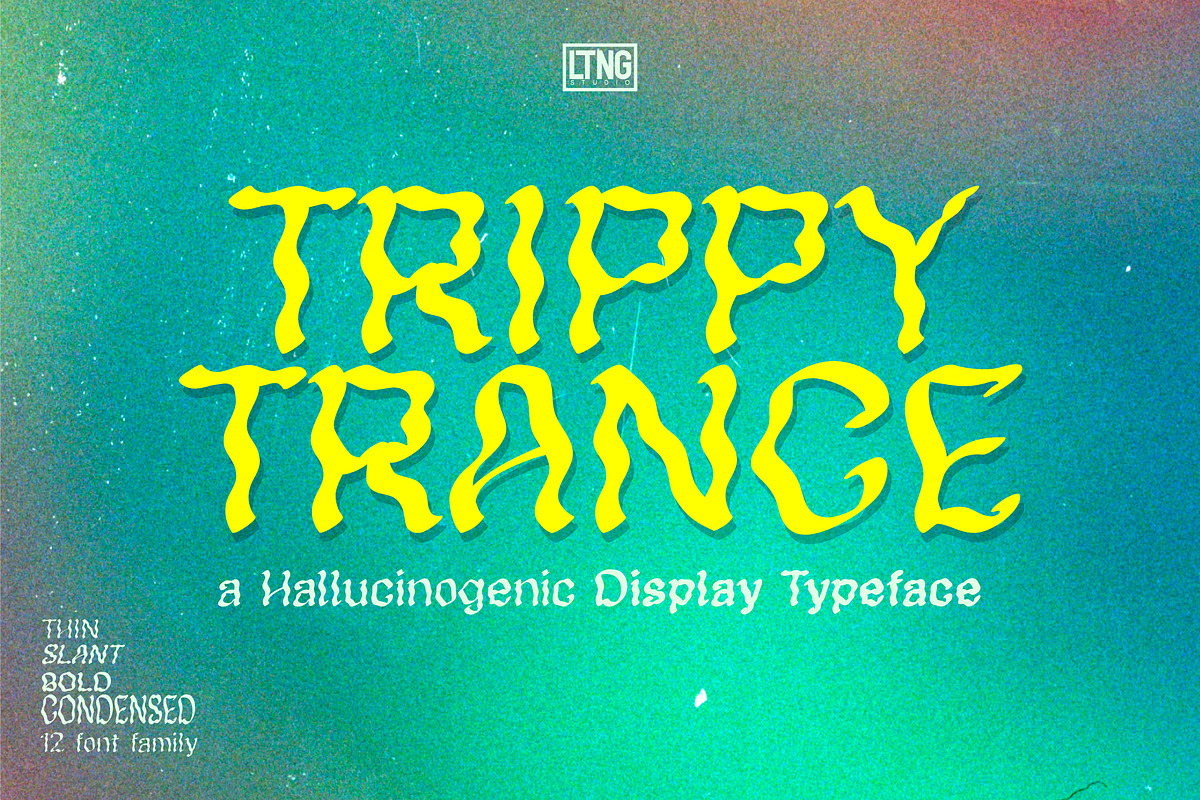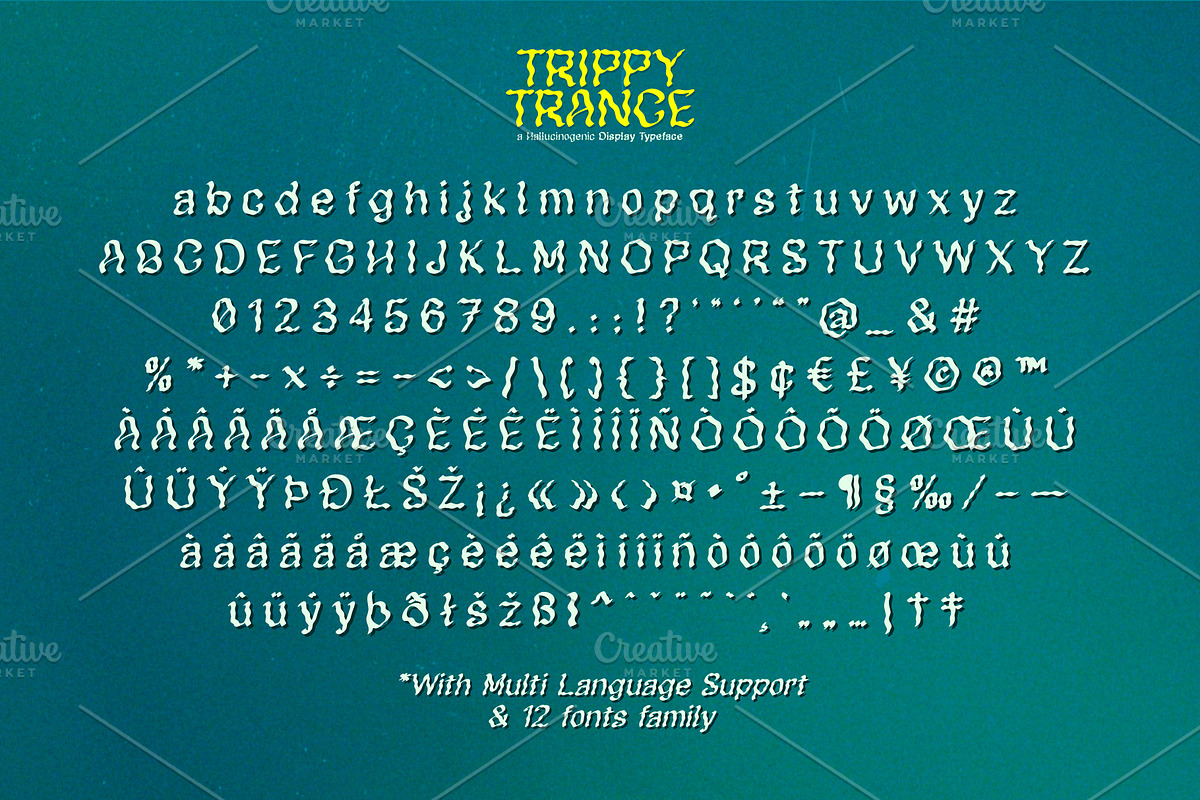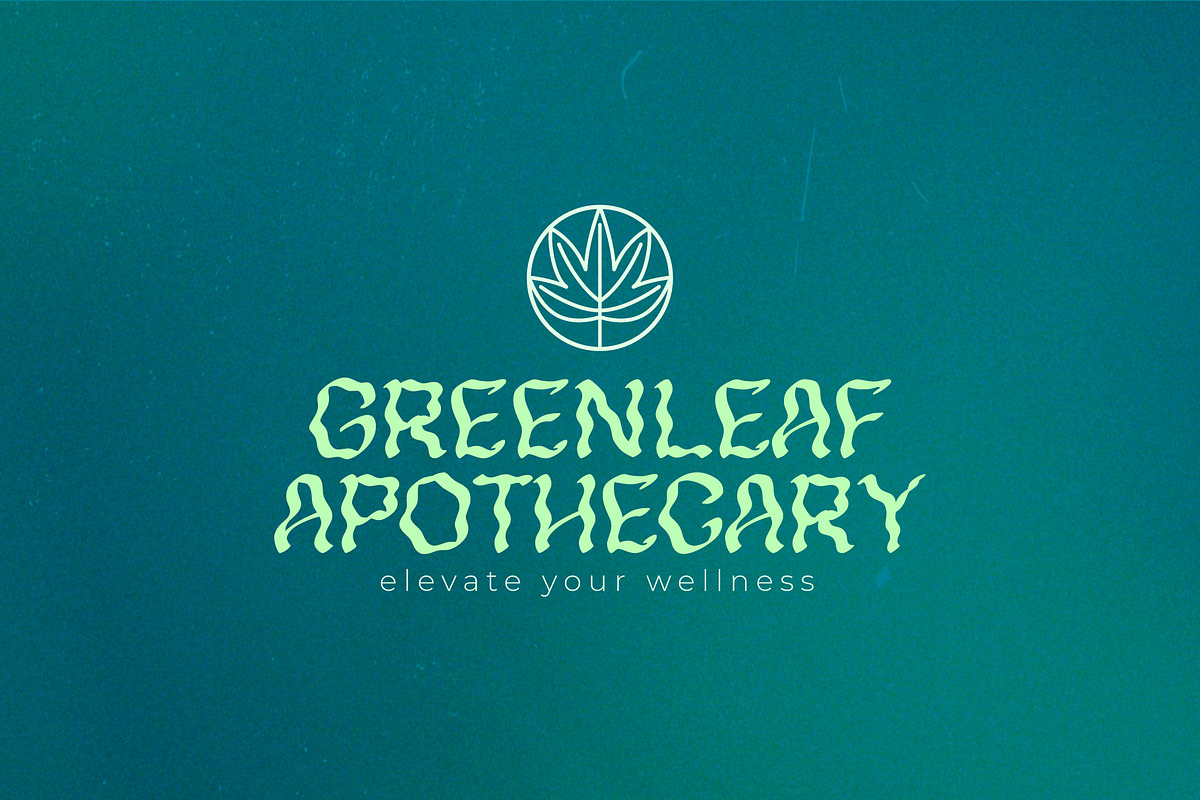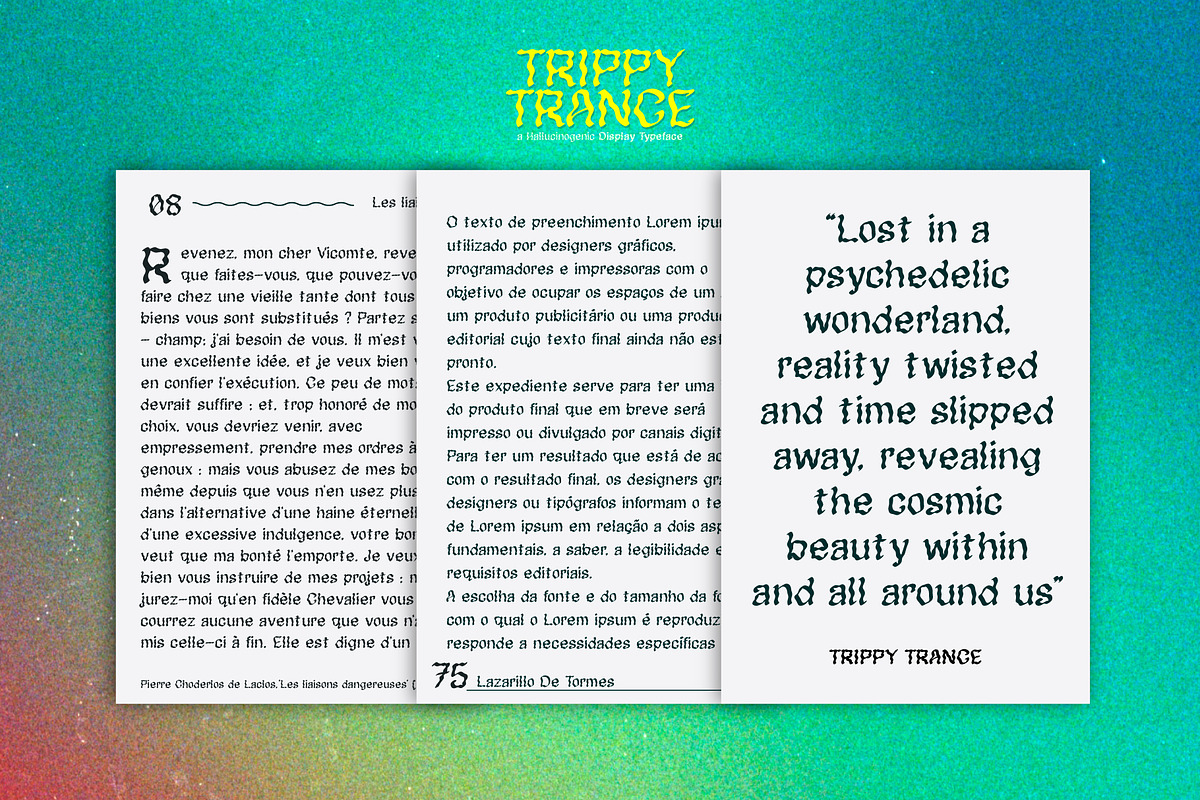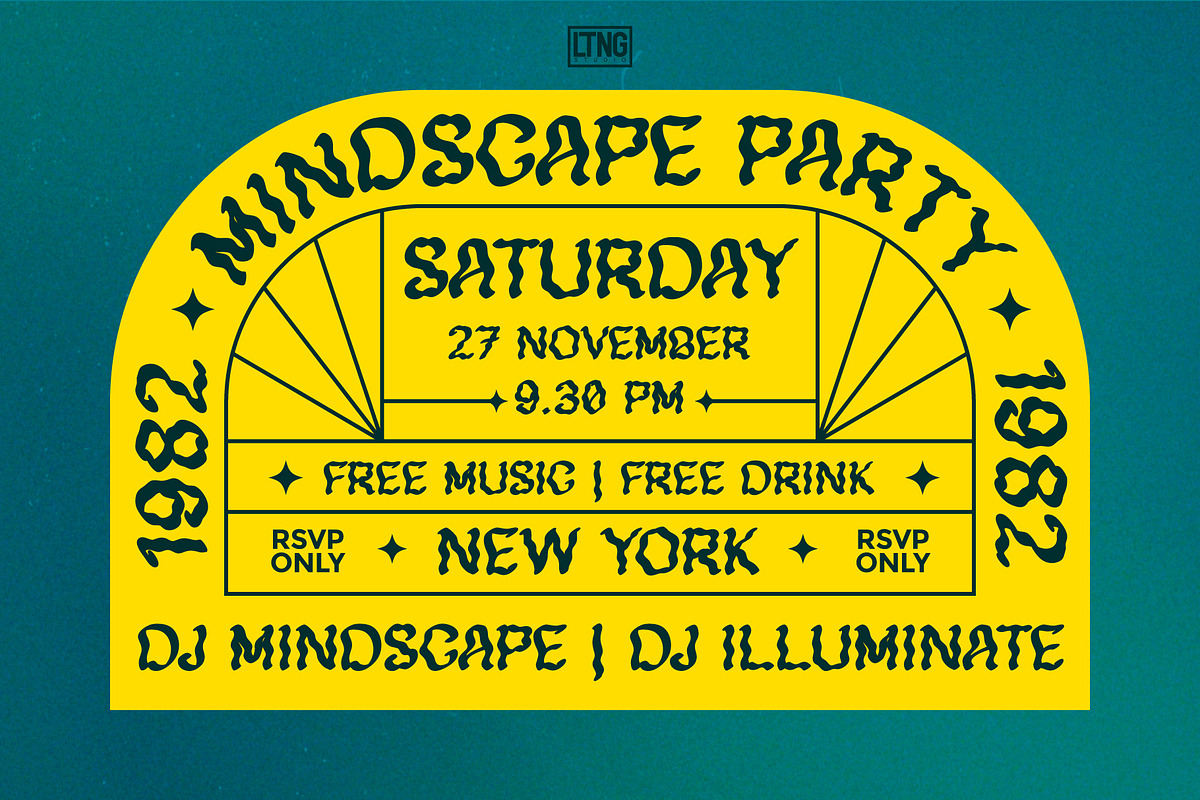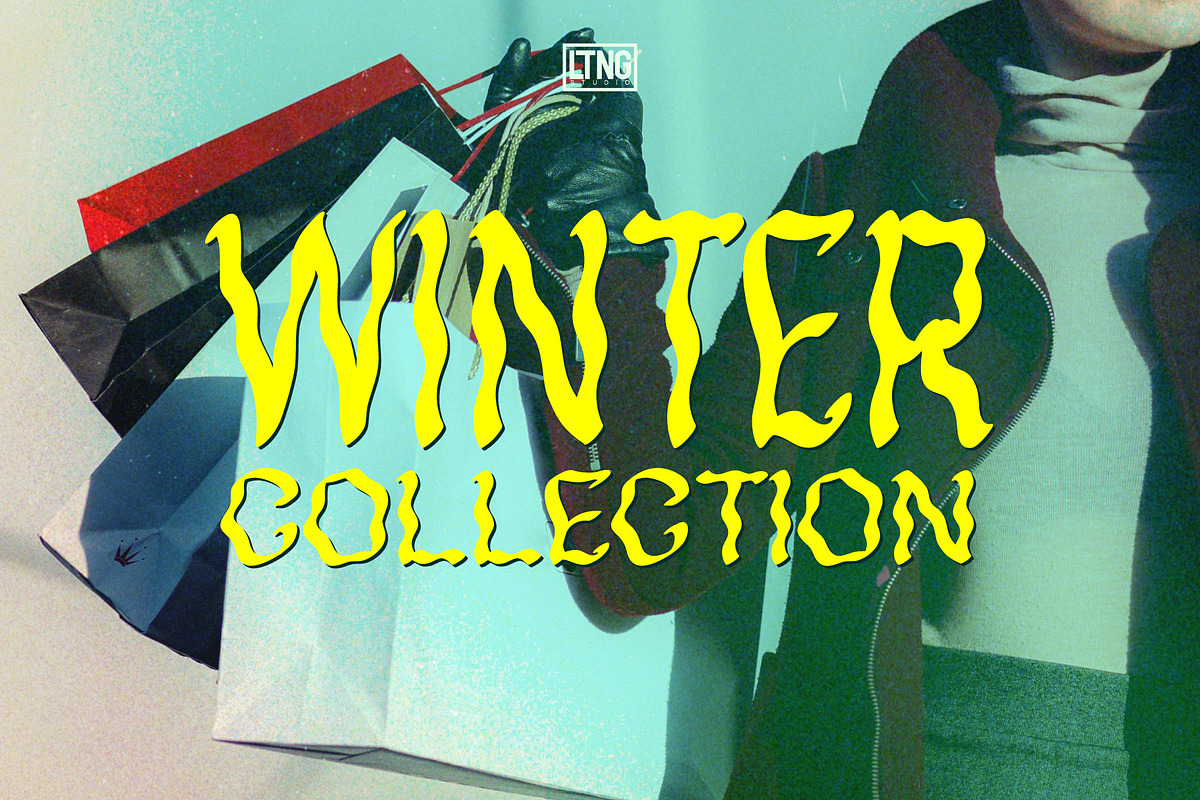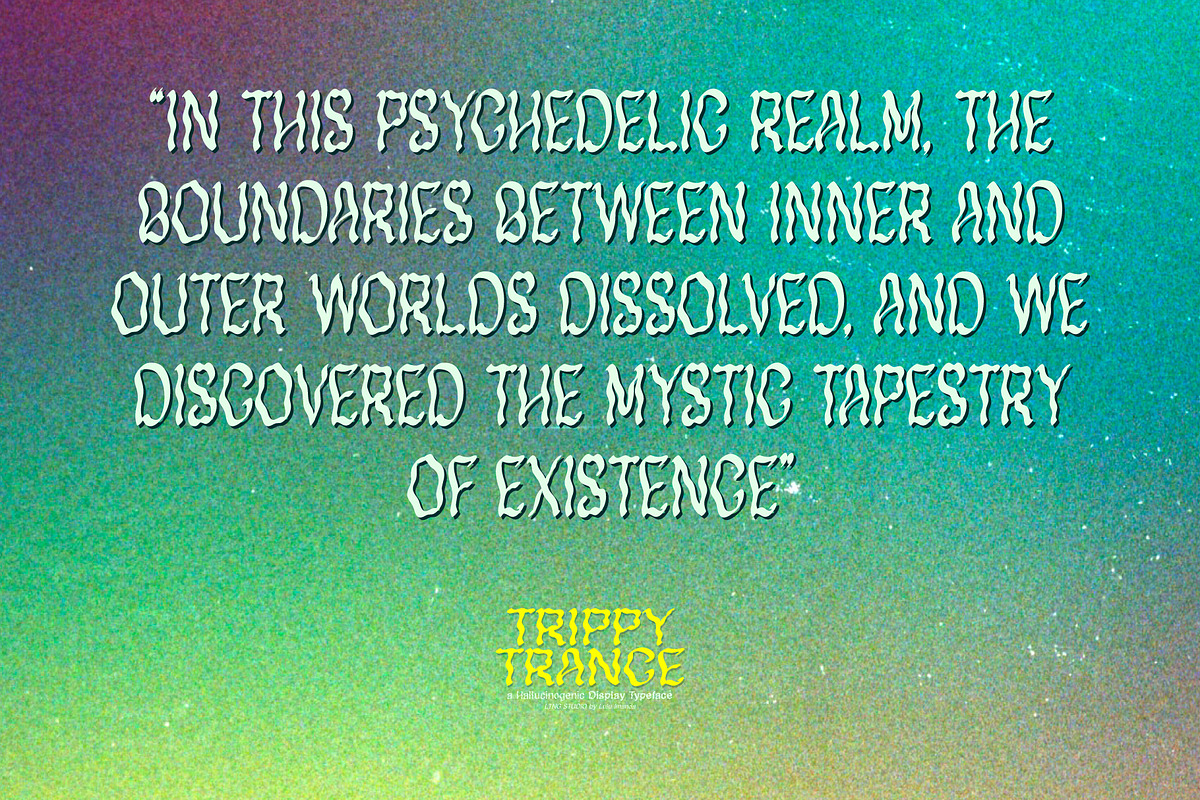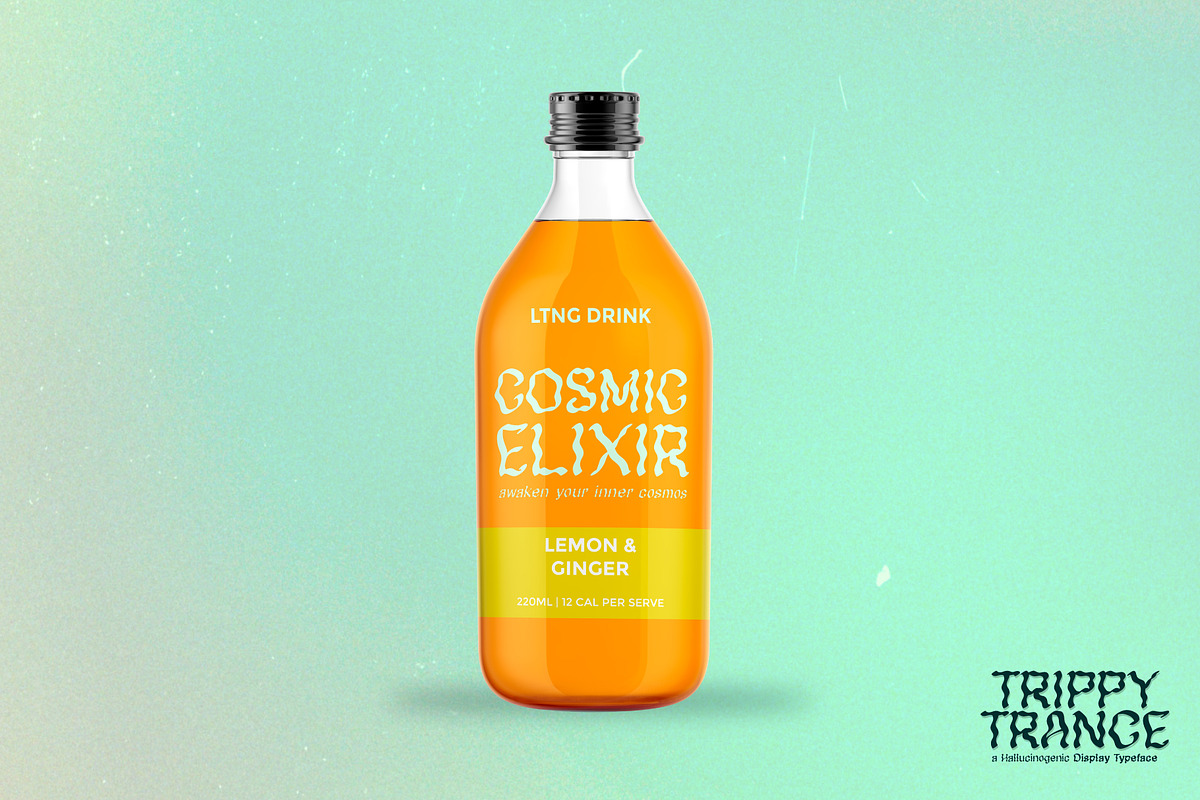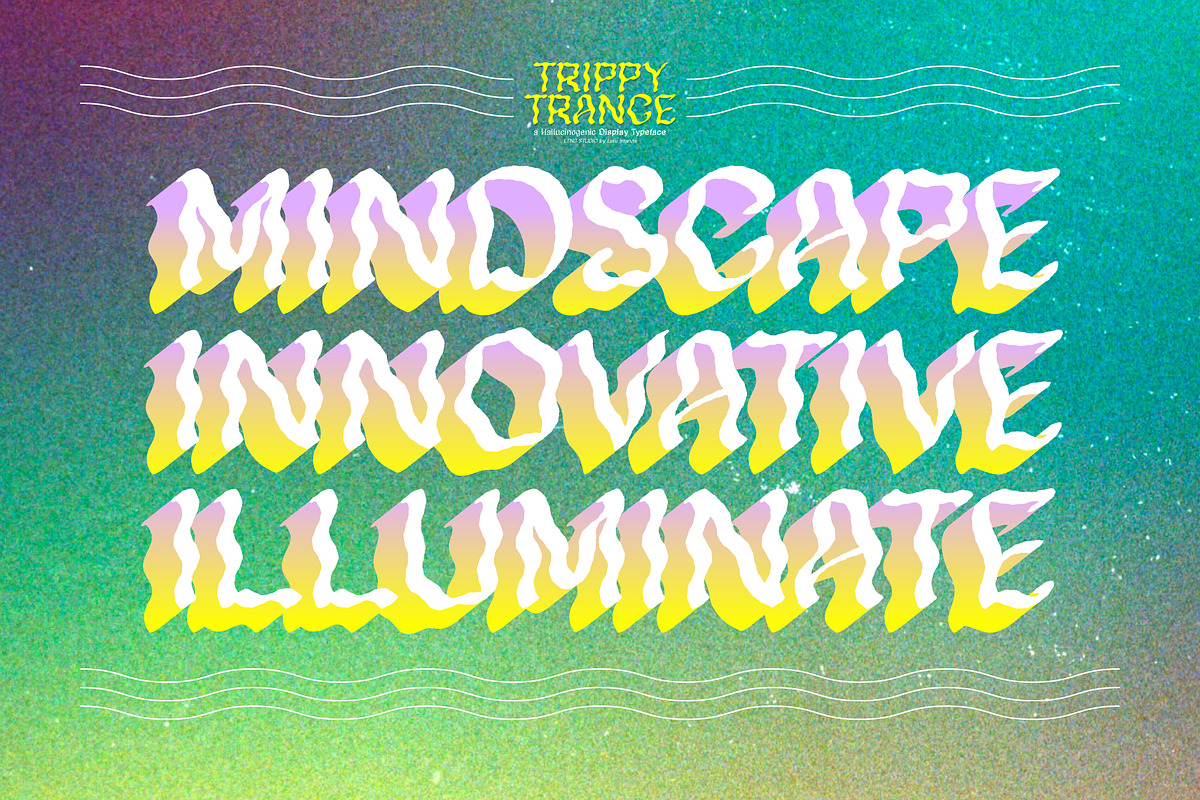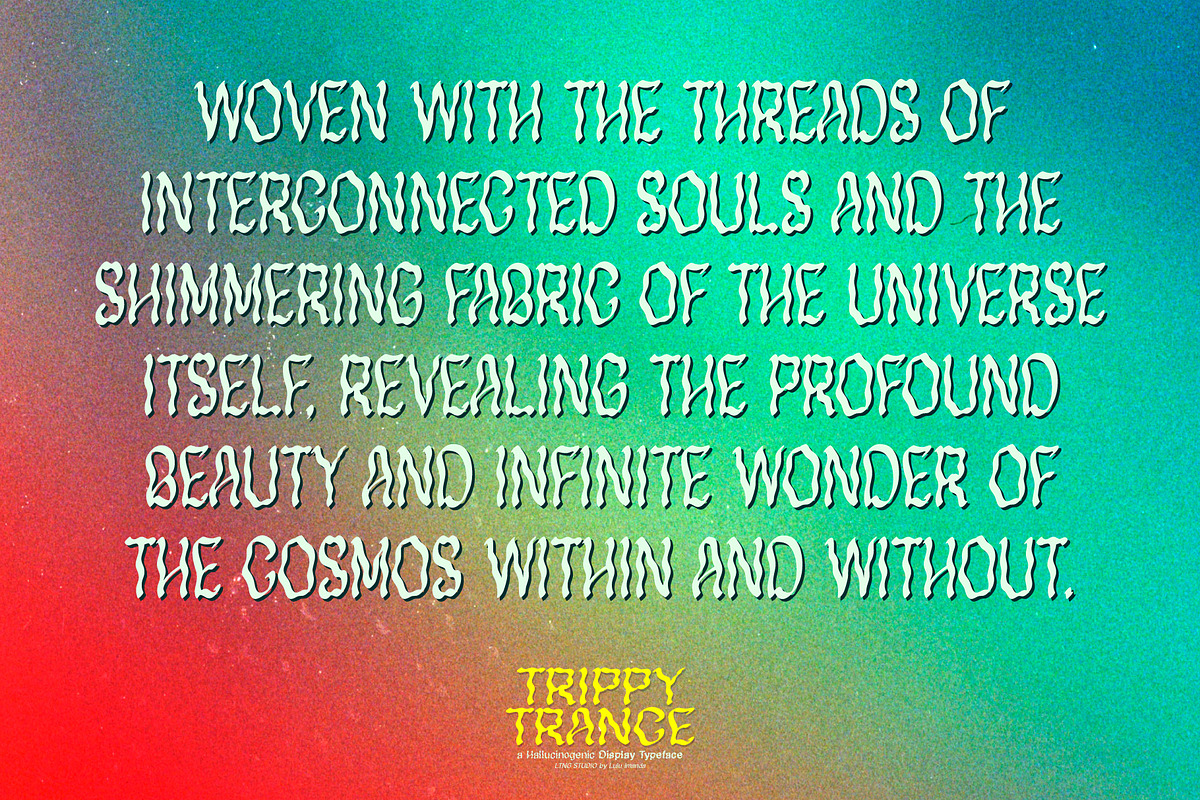
Trippy Trance
Trippy Trance: a Hallucinogenic Display Typeface
Trippy Trance is a unique display font designed to ignite your creative spark with a psychedelic twist. With its vibrant colors, unconventional shapes, and mind-bending style, this font is perfect for posters, album covers, and anything that calls for an eye-catching design. Get ready to leave a lasting impression and take your projects on a far-out, mind-expanding journey with Trippy Trance. You will get a font family with 12 fonts